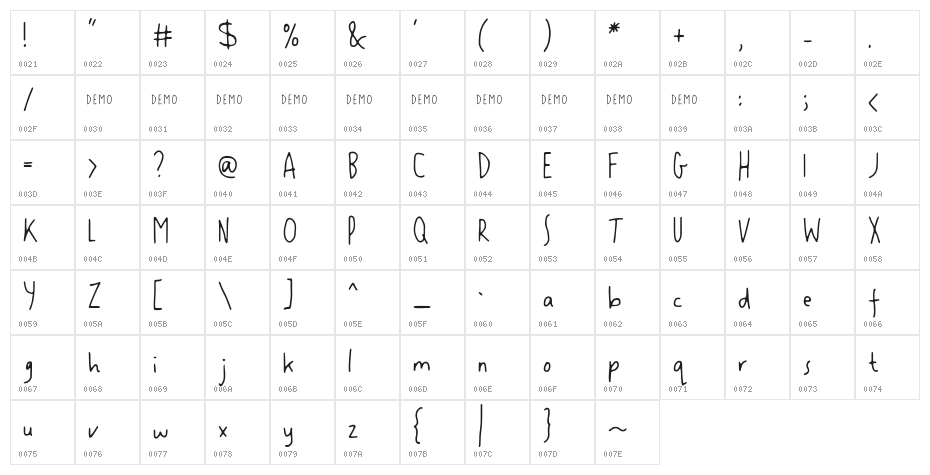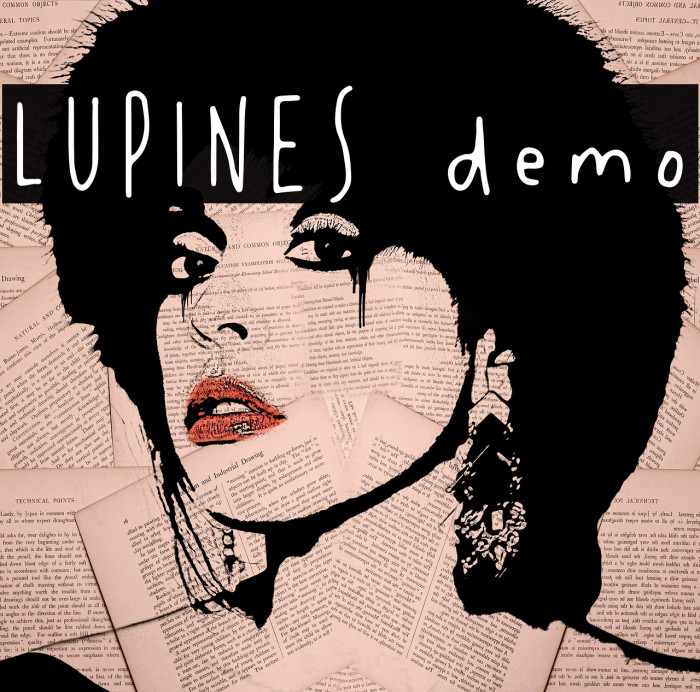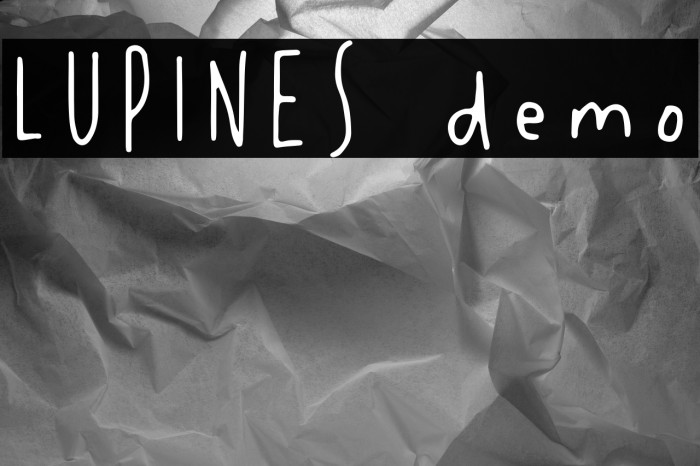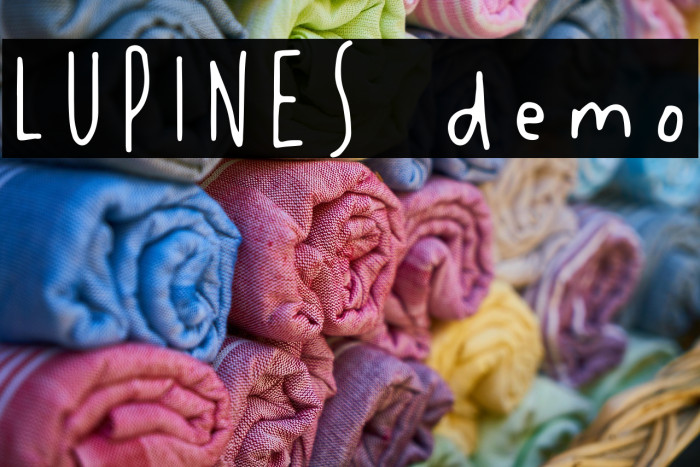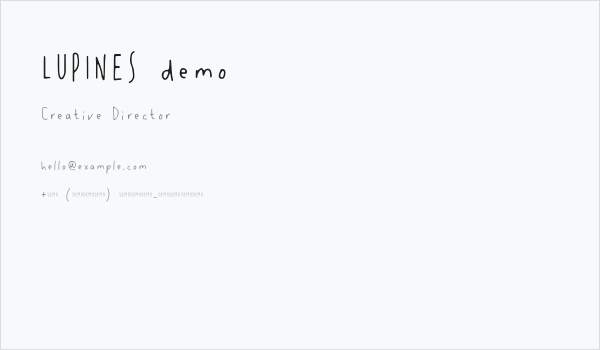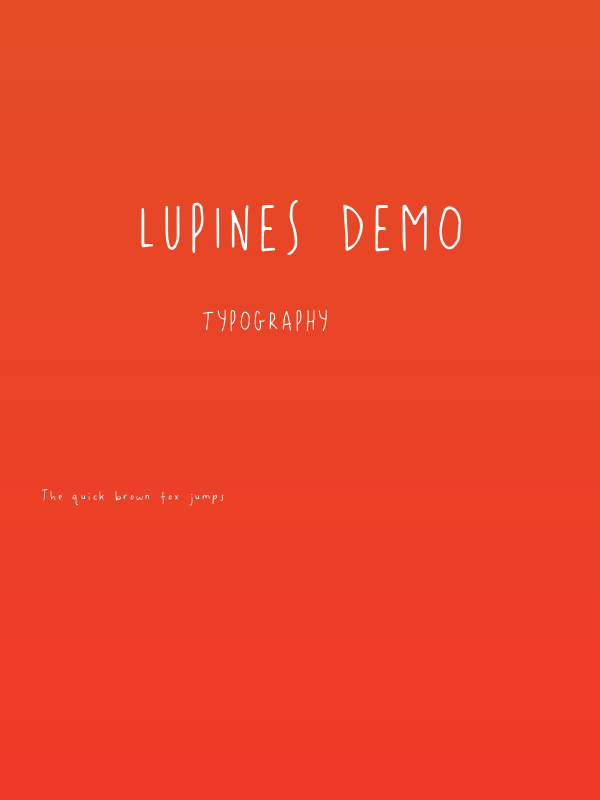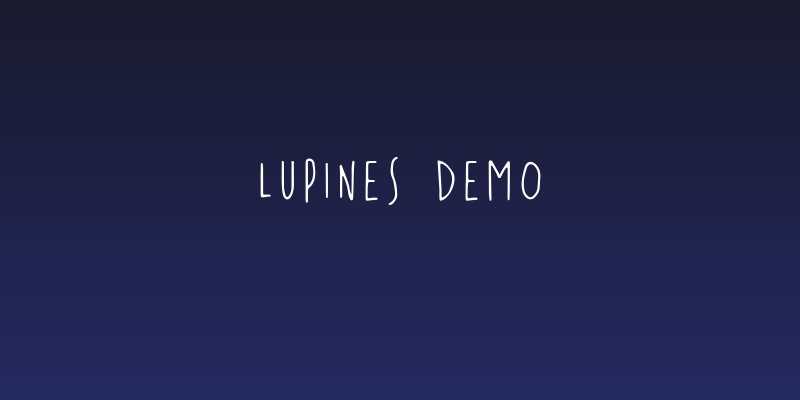
LUPINES demo Font
LUPINES demo Description
A playful, handwritten font with irregular strokes and a casual appearance.
| Use Case | Headlines, Informal text |
| Proposed Projects | Greeting cards, casual invitations, children's books. |